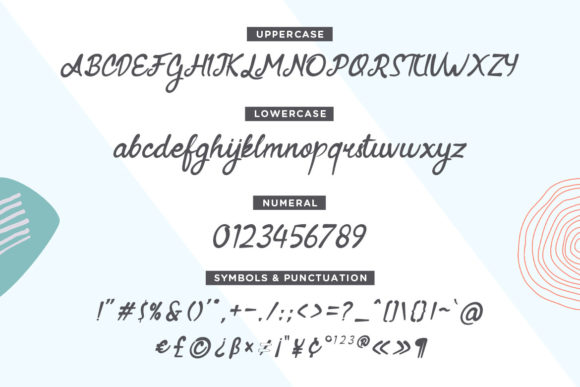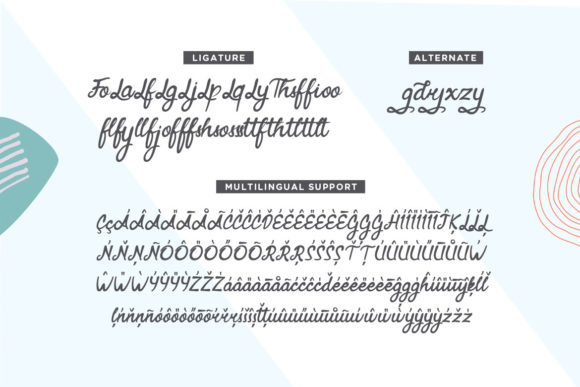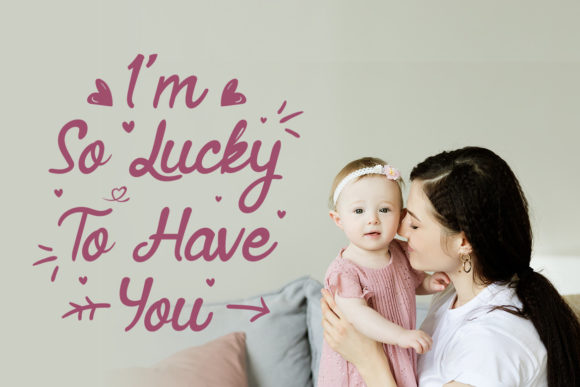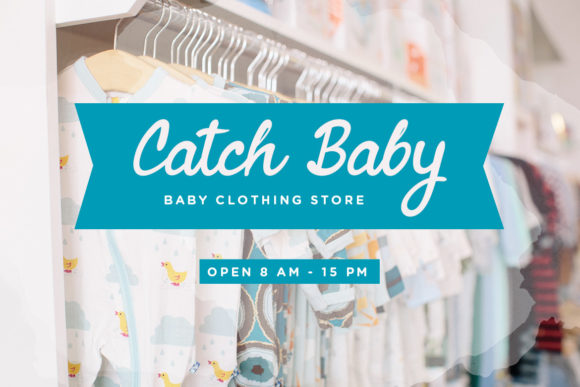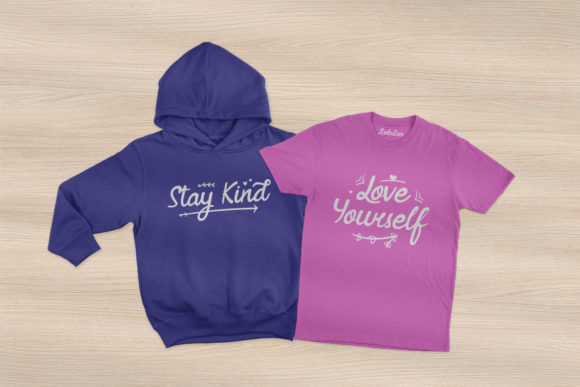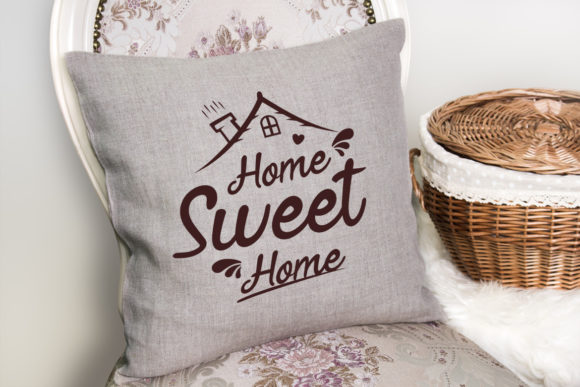
Introduction to Rebutan Font
Do you remember that moment when you stumbled upon the perfect font for your creative project? The one that made all the pieces fall into place, and your design suddenly felt alive? For many designers, that moment is a game-changer. And today, we’re excited to share with you a game-changing font that will take your designs to the next level: the Rebutan Font.
This lovely and timeless handwritten font is a treasure trove of creative possibilities. With its PUA encoded design, you can easily access all the glyphs and swashes, making it a valuable resource for designers looking to add a touch of elegance to their work. Whether you’re creating a logo, branding, or quotes, the Rebutan Font is an excellent choice for anyone seeking a high-quality design resource.
Key Features of Rebutan Font
- Unique, hand-drawn design perfect for creative projects that require a personal touch.
- Perfect for use in digital designs, such as logos, graphics, and typography-based projects.
Honest Review: Rebutan Font
As a designer, I’m always on the lookout for unique and versatile design resources to elevate my creative projects. Recently, I came across the Rebutan Font, which has left a lasting impression on me.
- ✨ The Rebutan Font boasts a high-quality, hand-drawn design that adds a personal touch to any project.
- ⚠️ The font may not be suitable for projects that require a more formal or traditional tone.
- ⚠️ Some users may find the font’s unique style to be overwhelming or distracting.
Overall, I’m impressed with the Rebutan Font’s potential to add a creative twist to my designs. While it may not be the perfect fit for every project, it’s definitely a valuable addition to any designer’s toolkit.
Tips for Getting the Most Out of Rebutan Font
Use the Rebutan Font with a transparent background to create a clean and minimalist design. Experiment with different font sizes and styles to add visual interest to your design. You can also pair the Rebutan Font with other design resources to create a unique and creative project.
The Rebutan Font is commonly used in design projects that require a modern and minimalist aesthetic. It is ideal for creating business cards, brochures, posters, and other marketing materials. You can also use it in digital design projects, such as website headers and social media graphics.